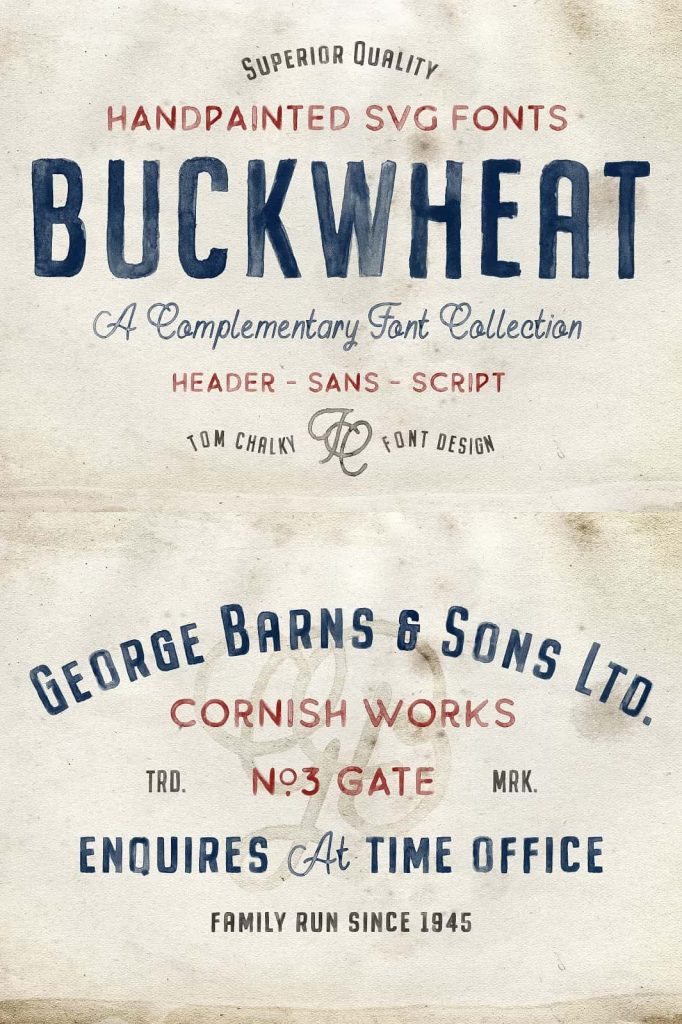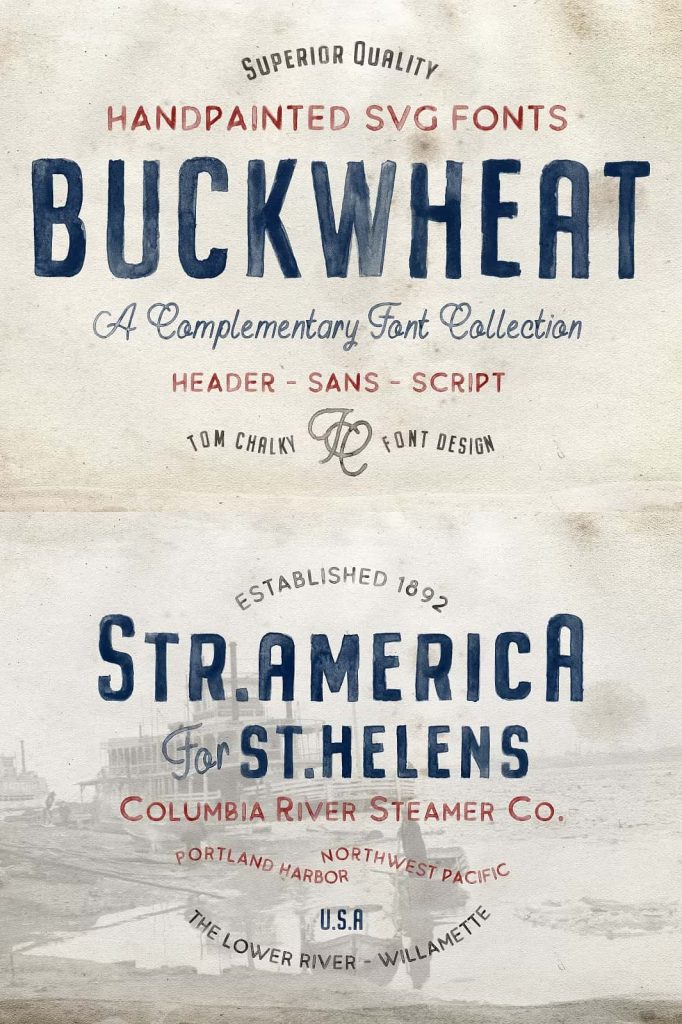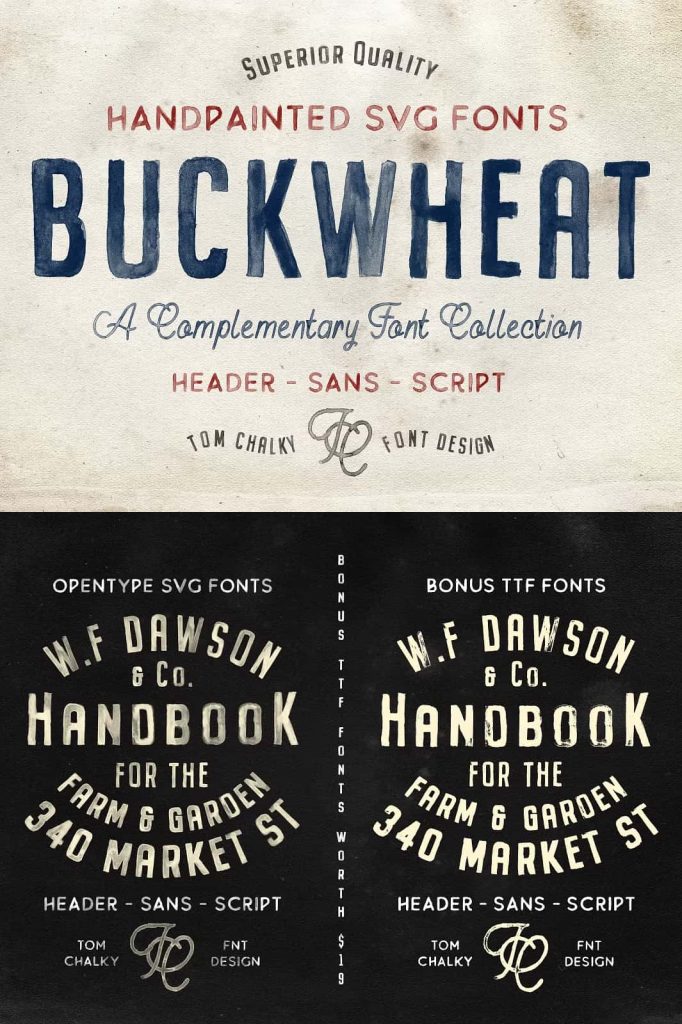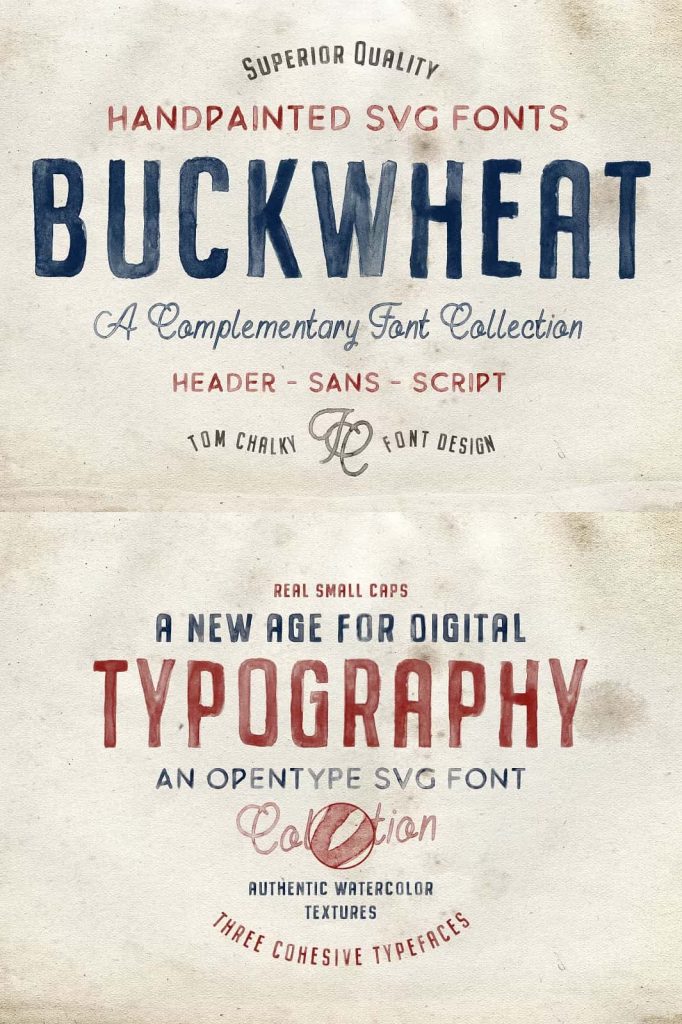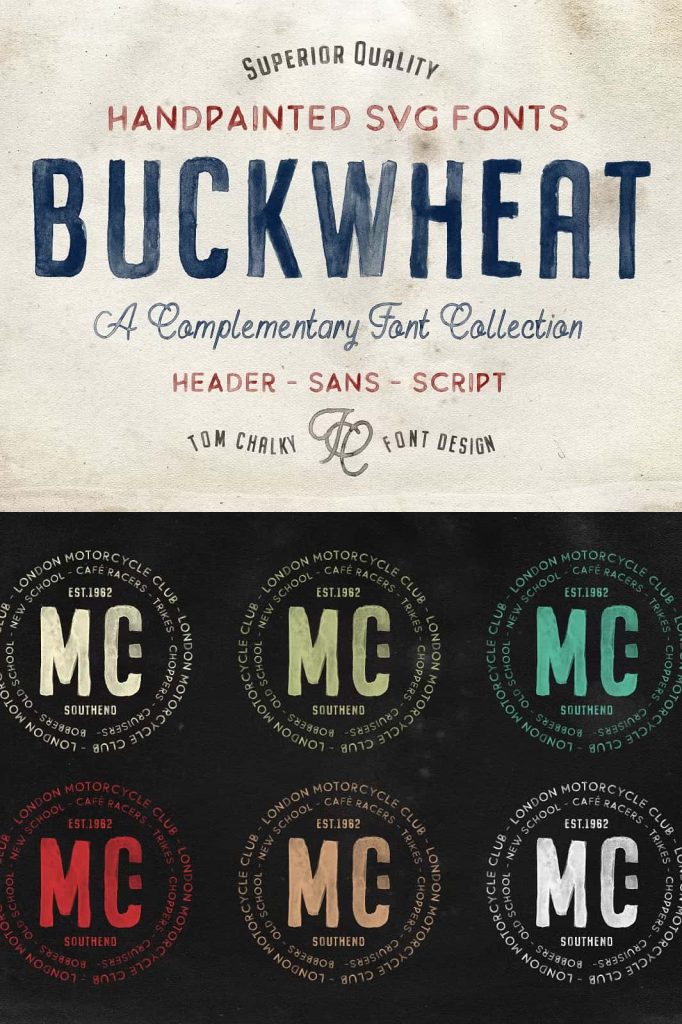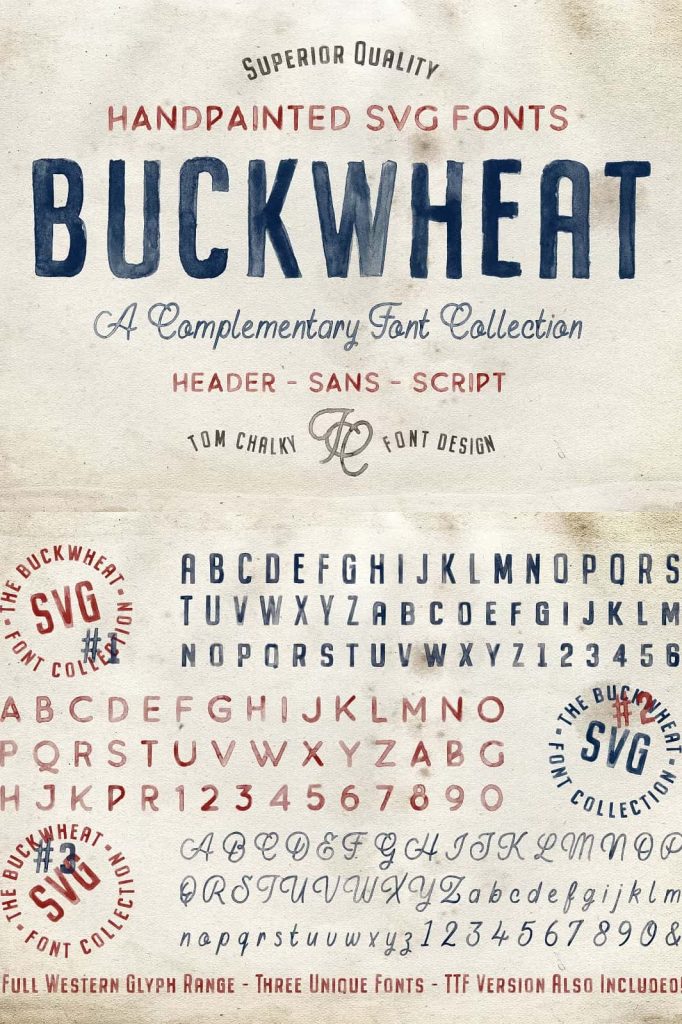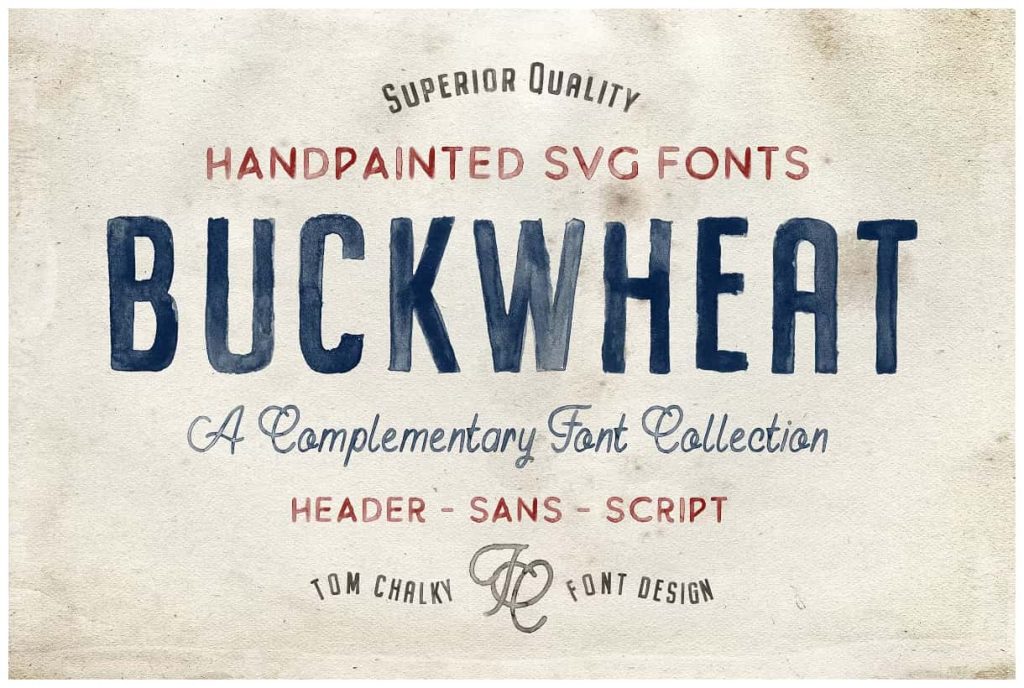
Buckwheat Opentype SVG FontsleastedMarch 31, 2025Fonts The Buckwheat SVG font collection includes three unique Opentype SVG fonts featuring an entirely hand-painted Download